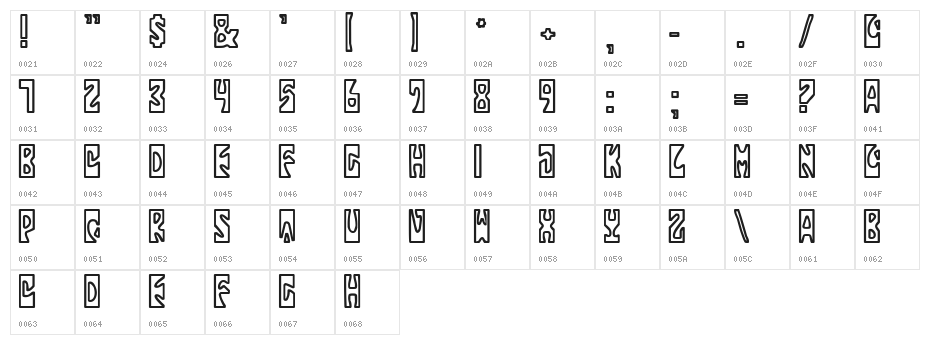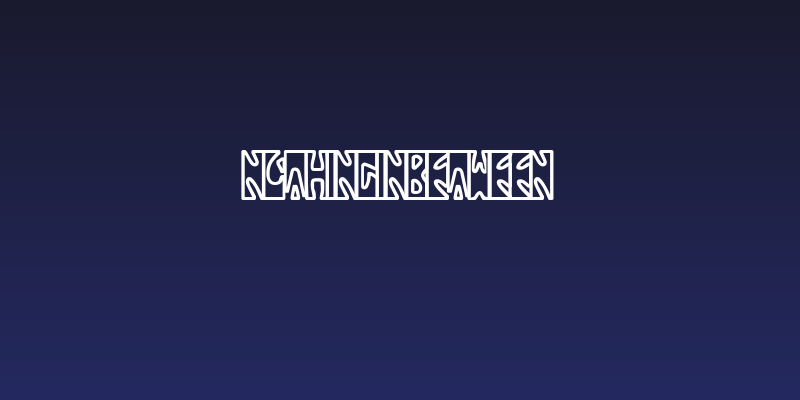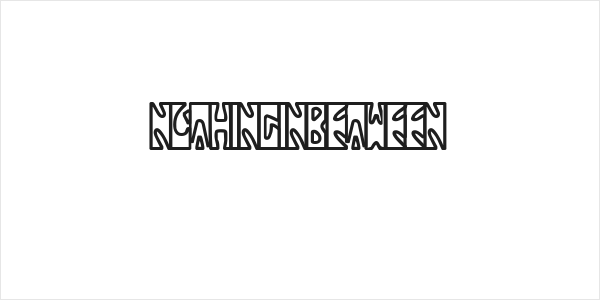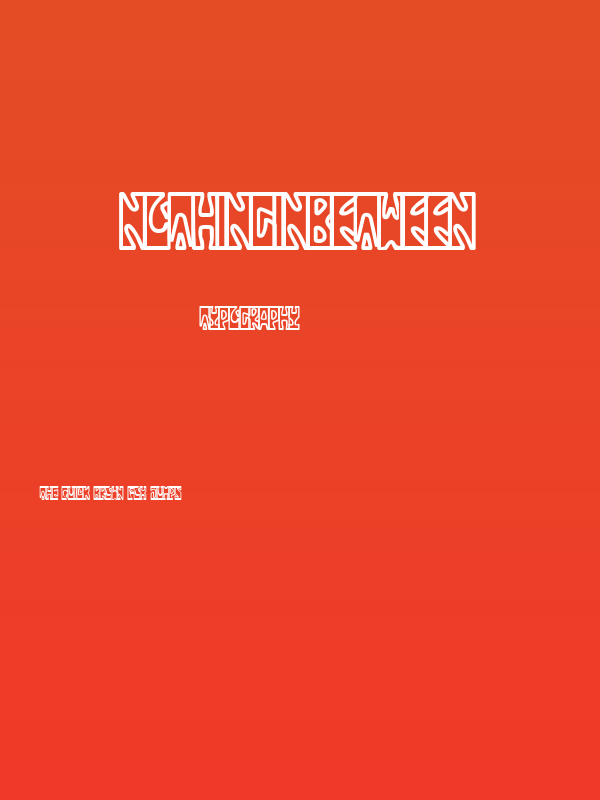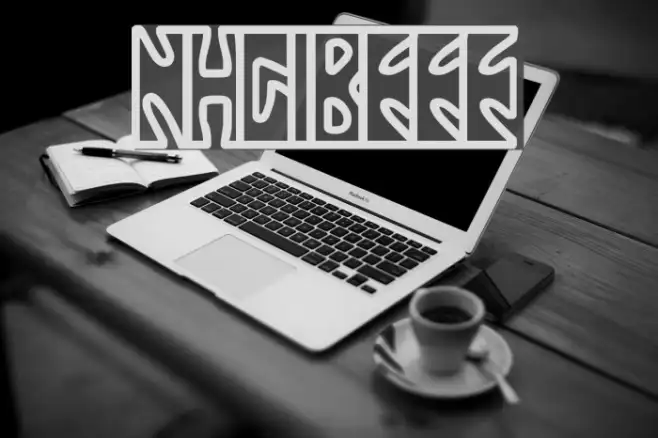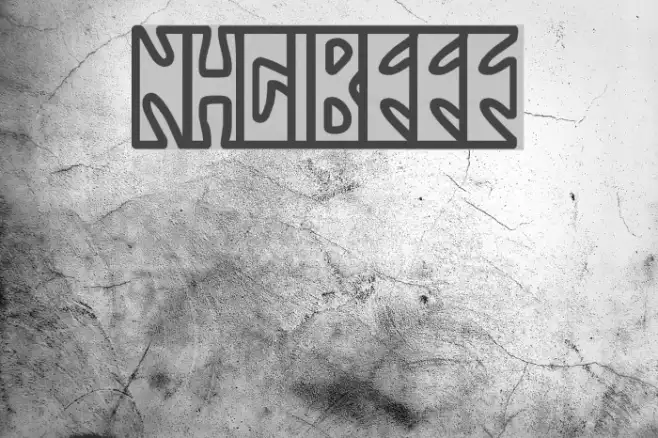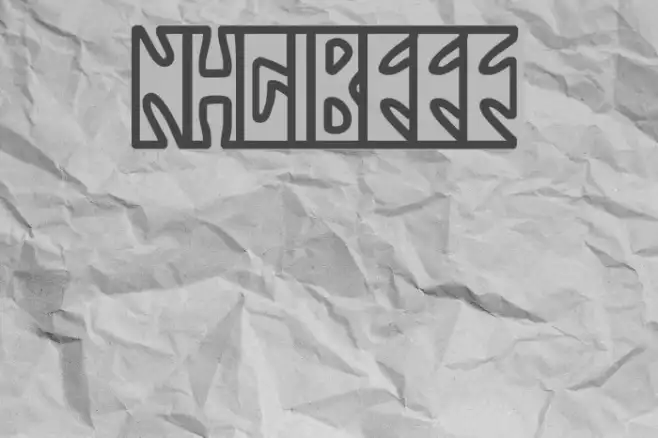
NothingInbetween Font
NothingInbetween Description
This font features a bold, decorative style with a unique, playful design. Each character is enclosed within a thick outline, creating a striking visual impact. The letters are highly stylized, with exaggerated curves and angles that give them a dynamic and energetic appearance. The font maintains a consistent weight throughout, with a focus on boldness and visibility. It is well-suited for creative projects that require a distinctive and eye-catching typeface. The spacing between characters is tight, enhancing the compact and cohesive look of the text.
| Proposed Projects | Ideal for posters, logos, and creative branding projects that require a bold and distinctive typeface. |